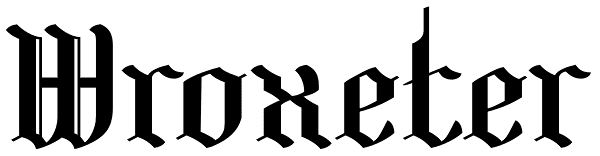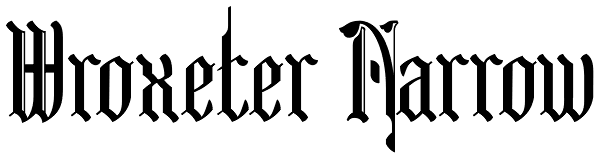
Wroxeter
Wroxeter is Greater Albion Typefounders' customary Black Letter release for Christmas 2013. It's a typeface family for all times of year though, a good clear traditional black letter re-creation offered in a family of four typeface:- regular...
Wroxeter
Wroxeter Oblique
Wroxeter Wrought
Wroxeter Narrow